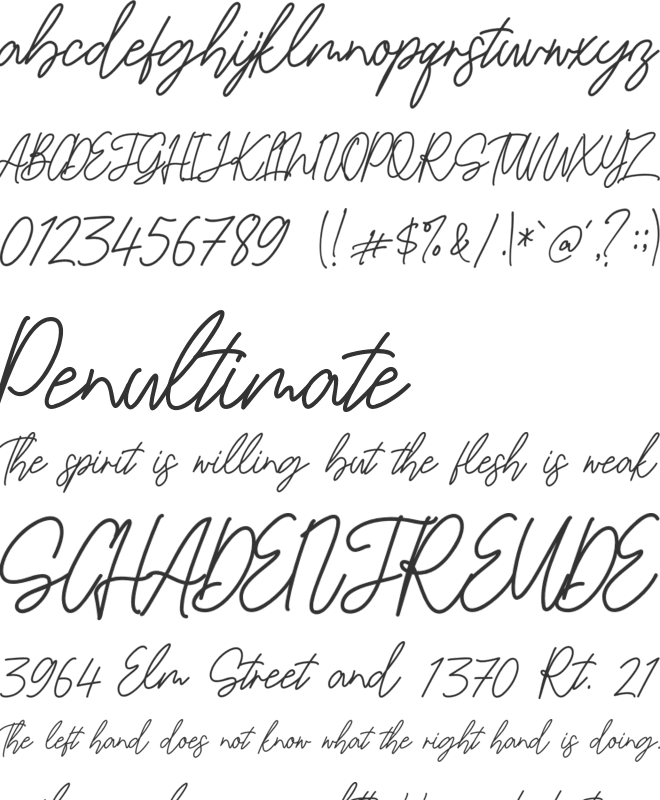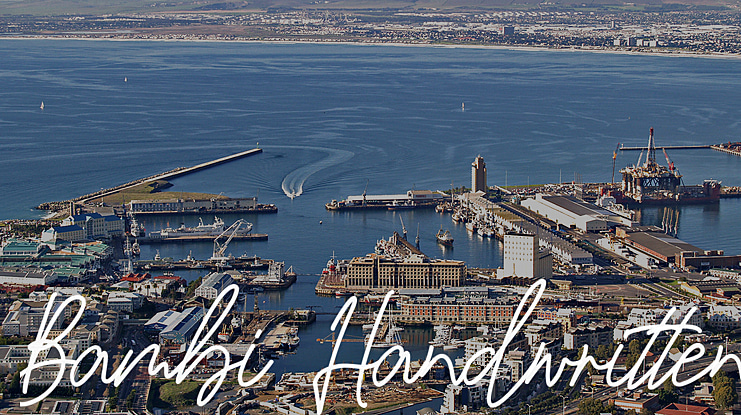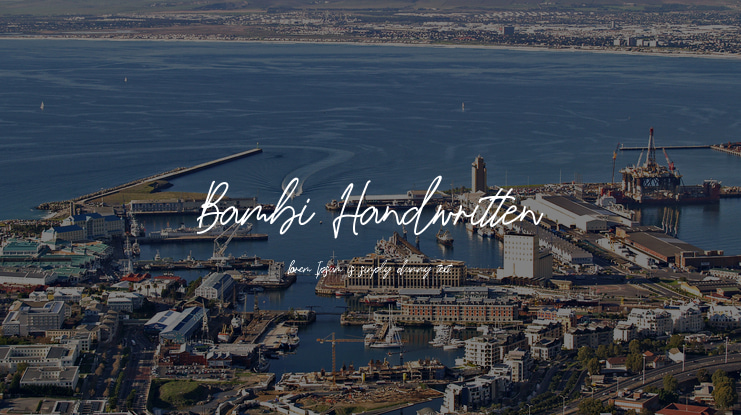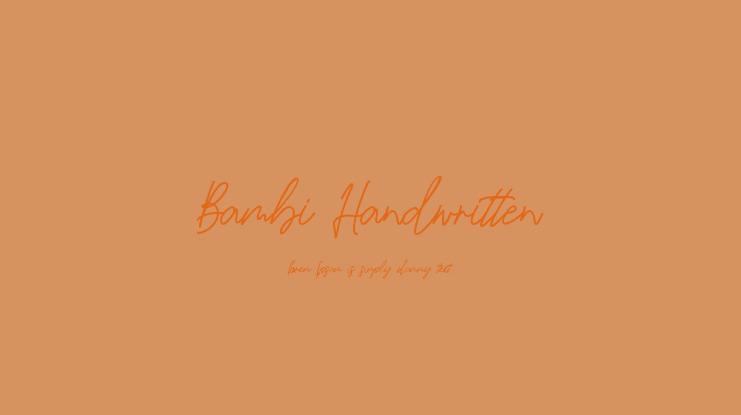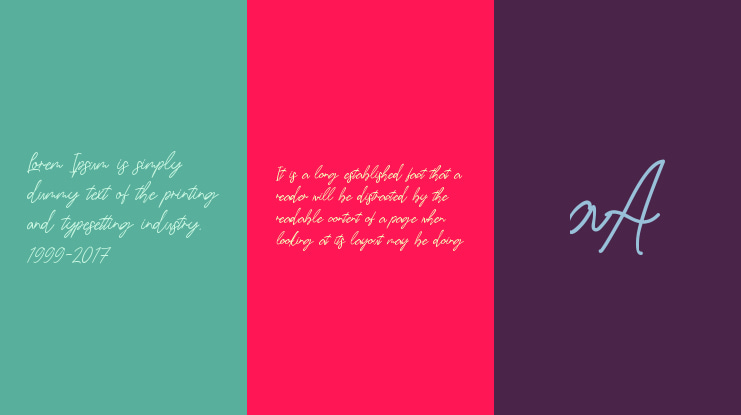
Bambi Handwritten Font
Introducing Bambi Handwritten Font. It is an elegant modern handwritten font with casual writing. It is perfect for branding, signature logo, wedding invitation, photography, and you can use and take advantage of Bambi, for promotional material and anything. Give your designs an authentic brush handcrafted feel.